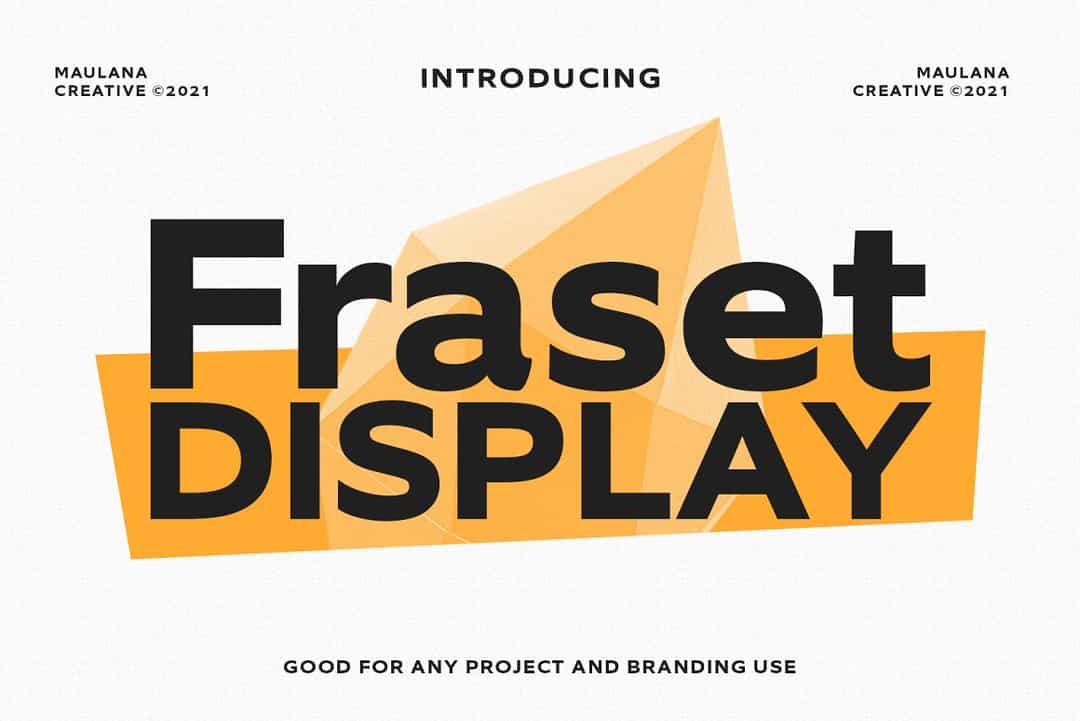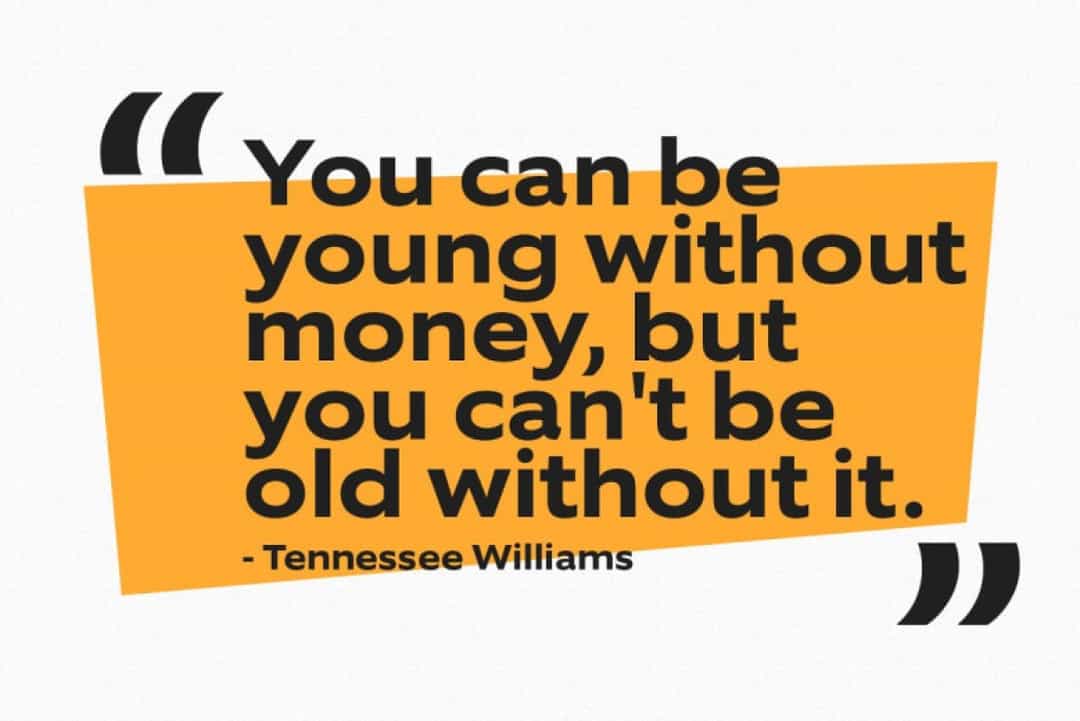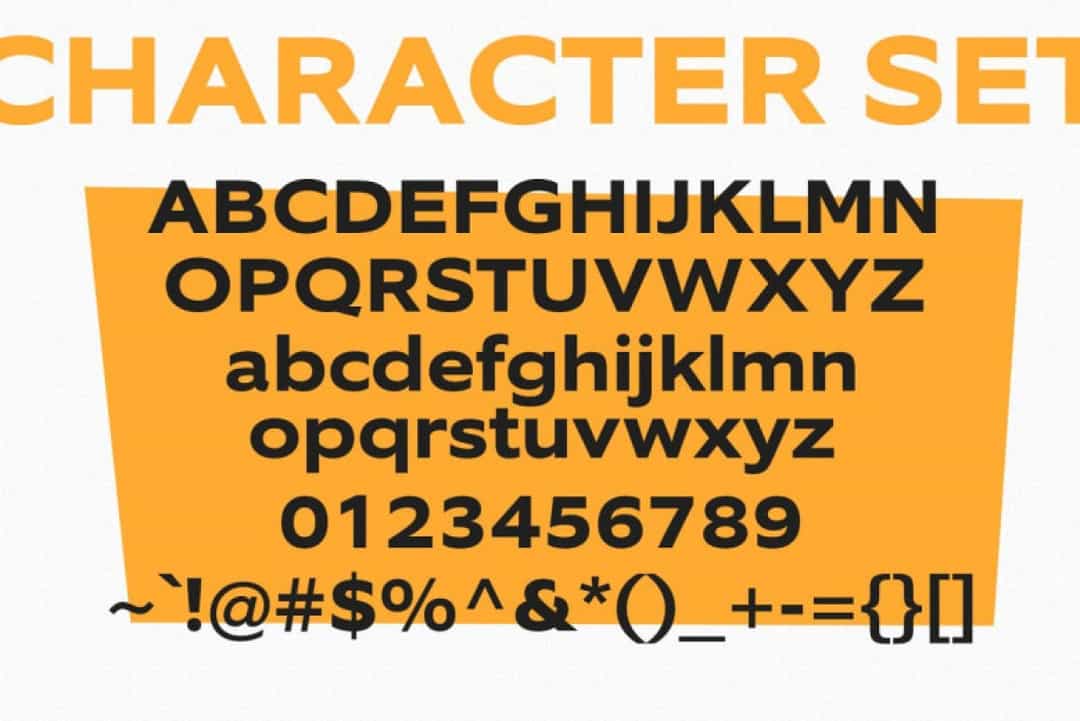
Fraset is a contemporary sans serif display font with bold strokes, lively characters and various ligatures for added drama and flair. Ideal for logos, social media posts and movie titles as well as book titles or short text, Fraset makes an impactful statement wherever it appears on any text surface – be it screen or paper!